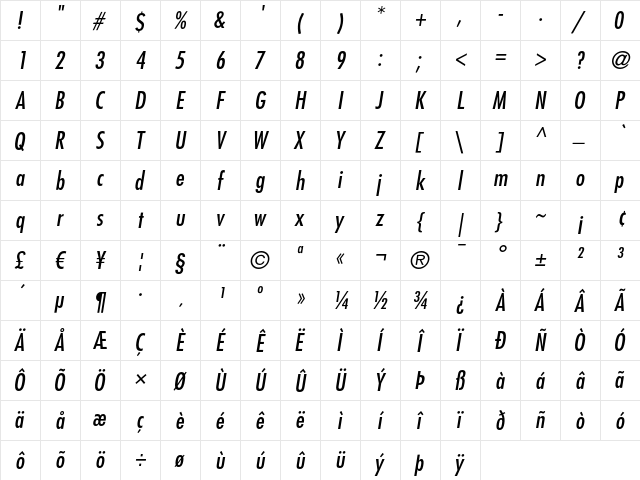
Futura LT Condensed Medium Oblique Font Preview
Design Context for Futura LT Typeface
Futura LT has a distinctly futuristic character, with geometric precision and clean angles that feel at home in technology, gaming, and sci-fi contexts. Its italic angle brings a sense of urgency and motion to the letterforms. The delicate stroke weight brings airiness and refinement to layouts. The condensed width makes it efficient for tight spaces without sacrificing legibility.
Pro Tip: Use Futura LT in combination with a neutral sans for body text. Let it define the brand voice in headlines while keeping reading comfortable elsewhere.